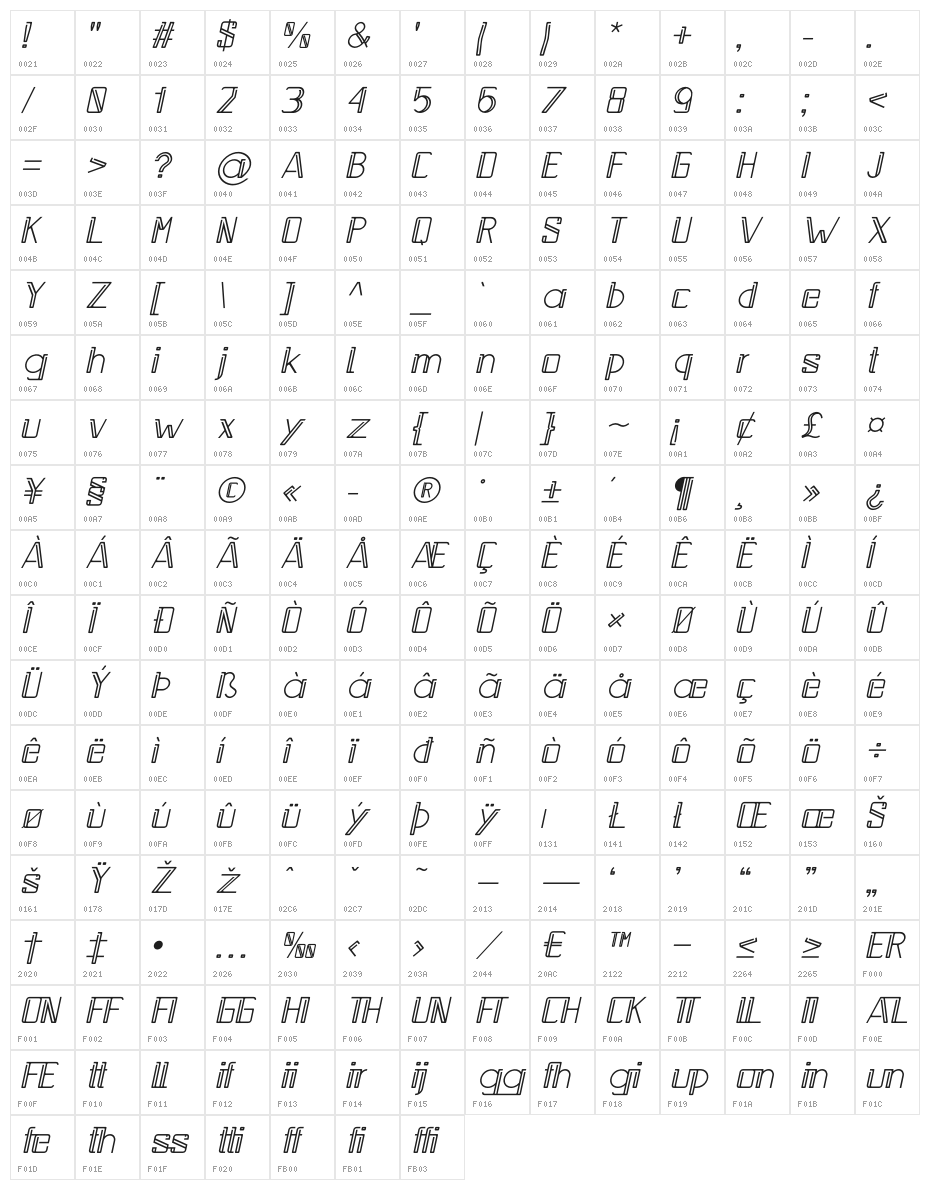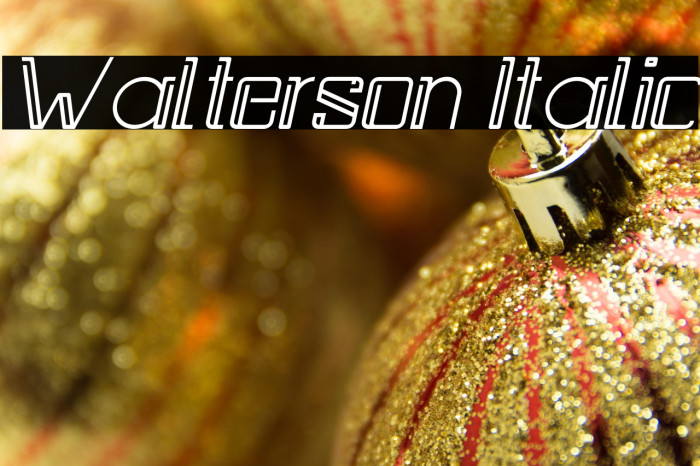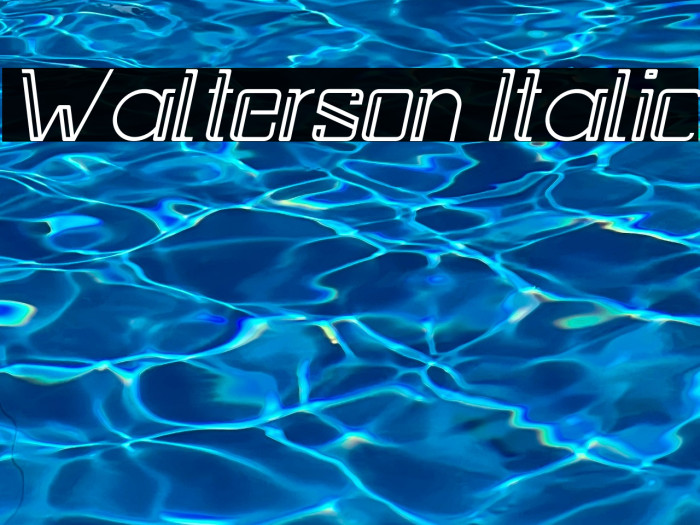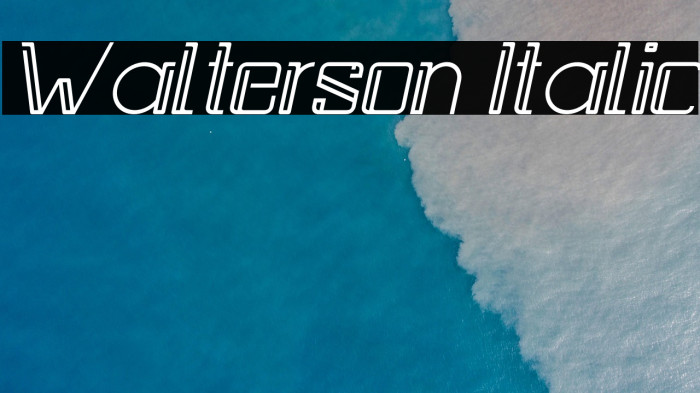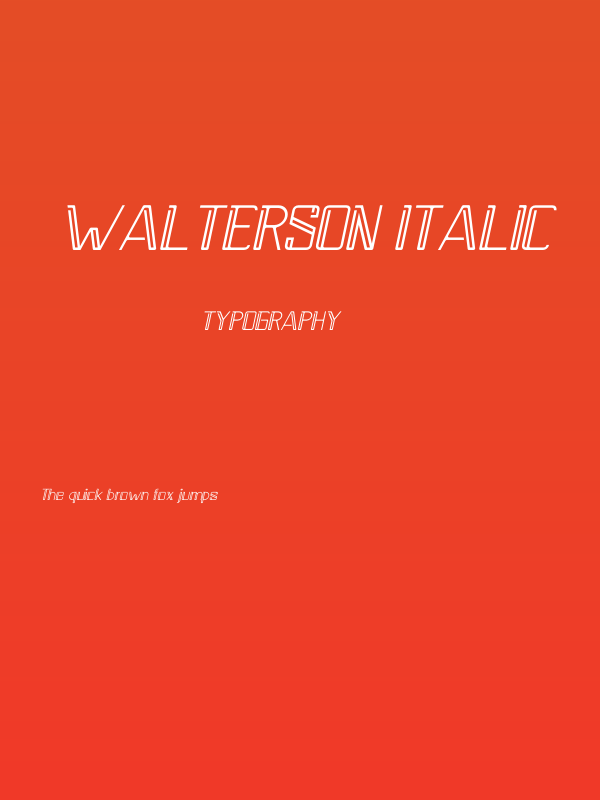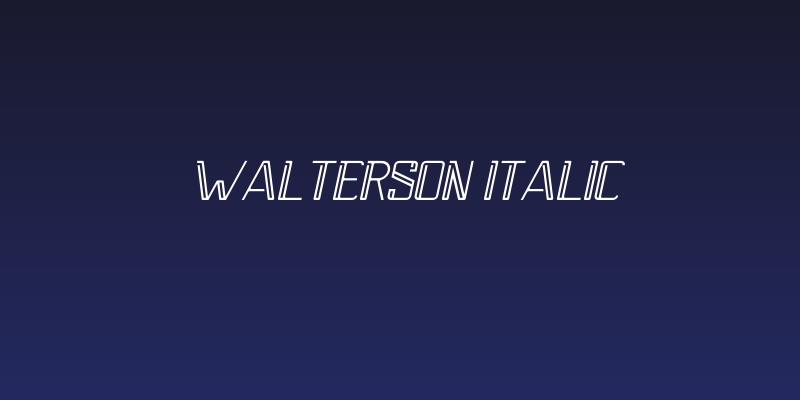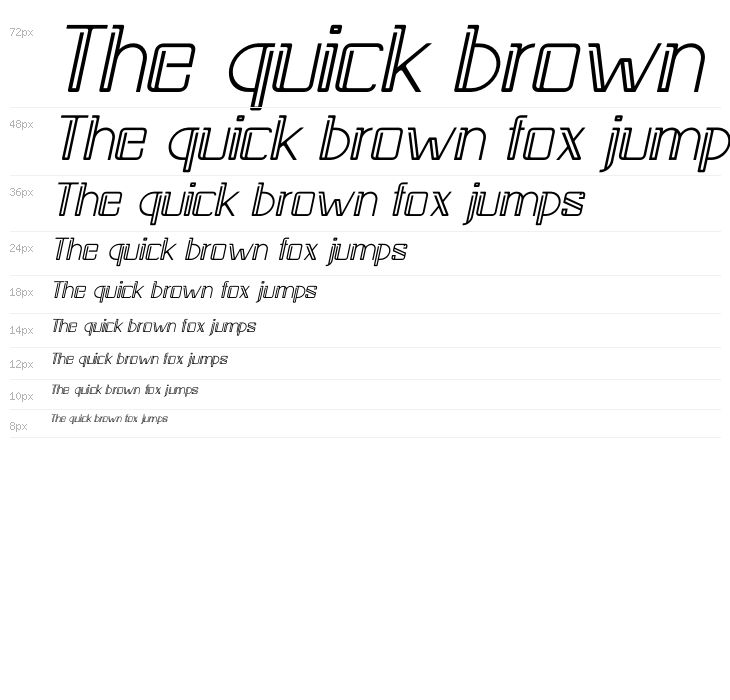
Walterson Italic Font
Walterson Italic Description
This font features a modern, geometric design with a distinct italic slant. The characters are constructed with clean, straight lines and sharp angles, giving it a futuristic and technical appearance. The uppercase and lowercase letters maintain a consistent style, with a uniform stroke width that adds to its sleek look. The numerals and special characters are designed to match the overall aesthetic, making it suitable for digital and print media. The font's unique style is eye-catching and ideal for projects that require a contemporary and innovative touch.
| Overall Style | Modern, Futuristic |
| Use Case | Headlines, Logos, Digital Interfaces |
| Proposed Projects | Ideal for technology branding, modern advertising, digital interfaces, and innovative product packaging. |